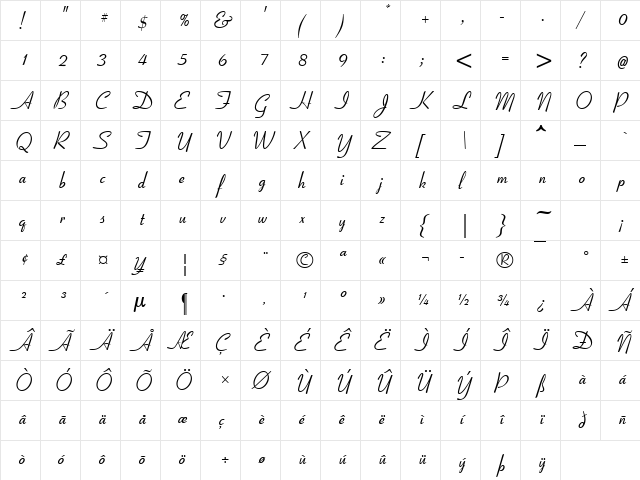
CoronetI Regular
Design Context for CoronetI Typeface
CoronetI is a composed and adaptable typeface that performs quietly and consistently across a wide range of design contexts.